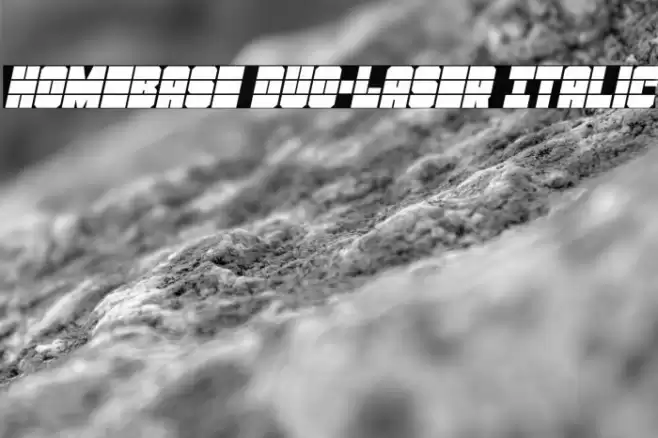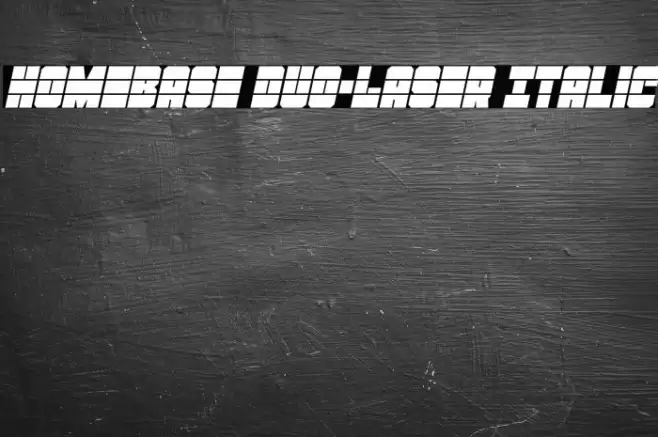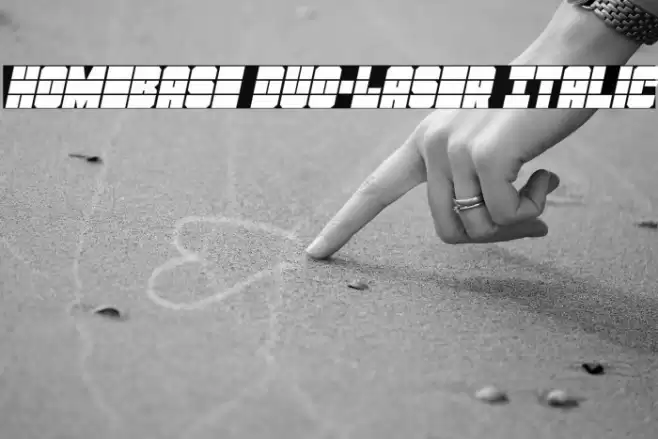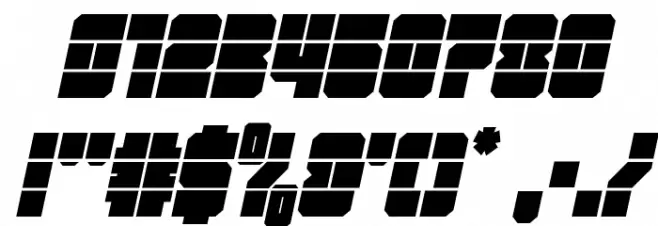
Homebase Duo-Laser Italic Font
Homebase Duo-Laser Italic Description
This font features a bold, geometric design with a futuristic flair. The characters are constructed with thick, block-like shapes that give a sense of solidity and strength. Each letter is composed of angular cuts and sharp edges, creating a dynamic and energetic appearance. The italic style adds a sense of motion and speed, enhancing its modern aesthetic. The font's unique structure makes it stand out, with each character having a distinct presence. This style is particularly effective for creating a strong visual impact, making it suitable for attention-grabbing headlines and titles.
A bold, geometric, and futuristic italic font with a strong visual impact from Uncategorized fonts.
- Font: Homebase Duo-Laser Italic
- Proposed Projects: Ideal for sci-fi themed projects, technology branding, video game titles, and dynamic posters.
- Character Spacing: Tight